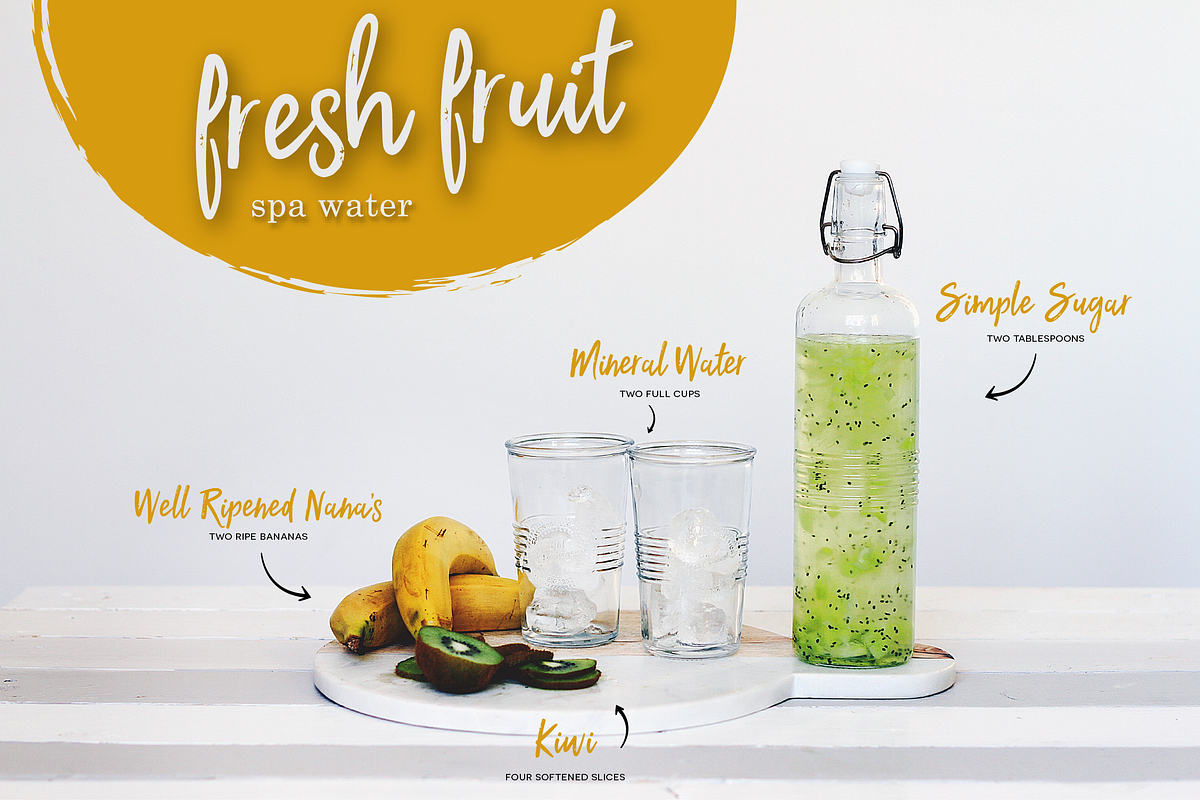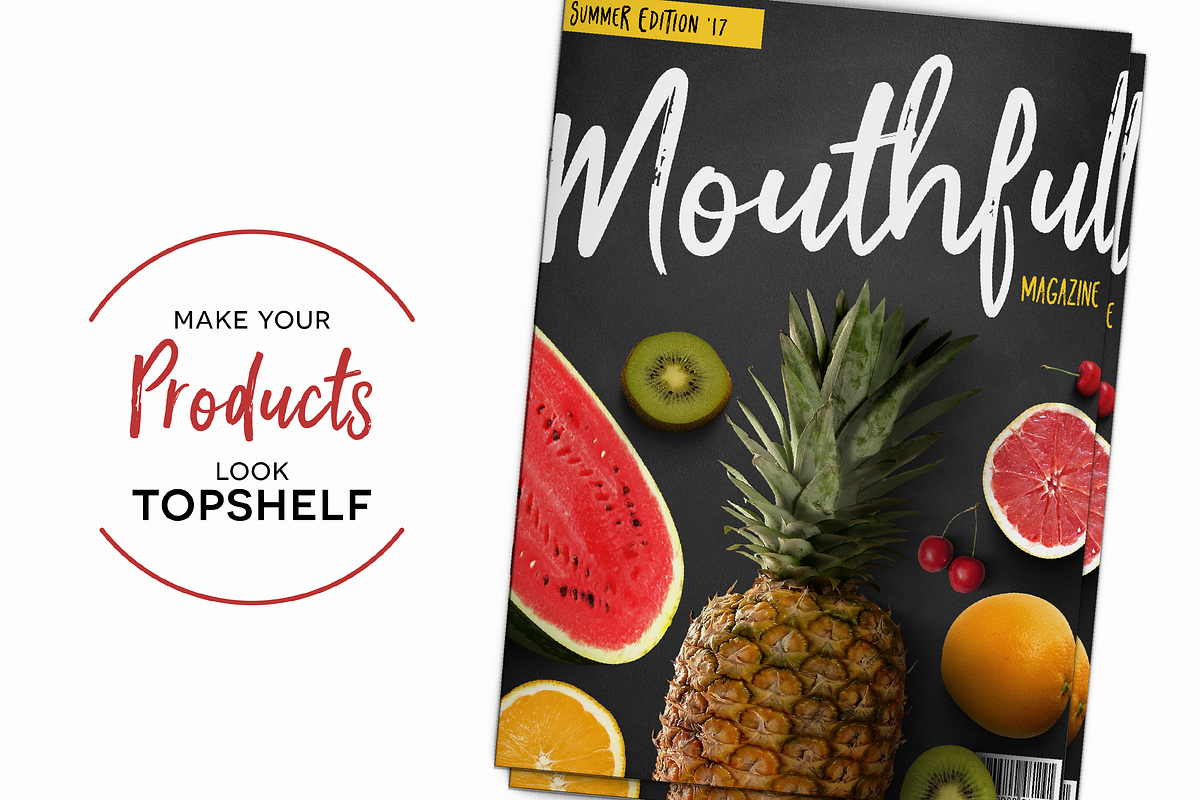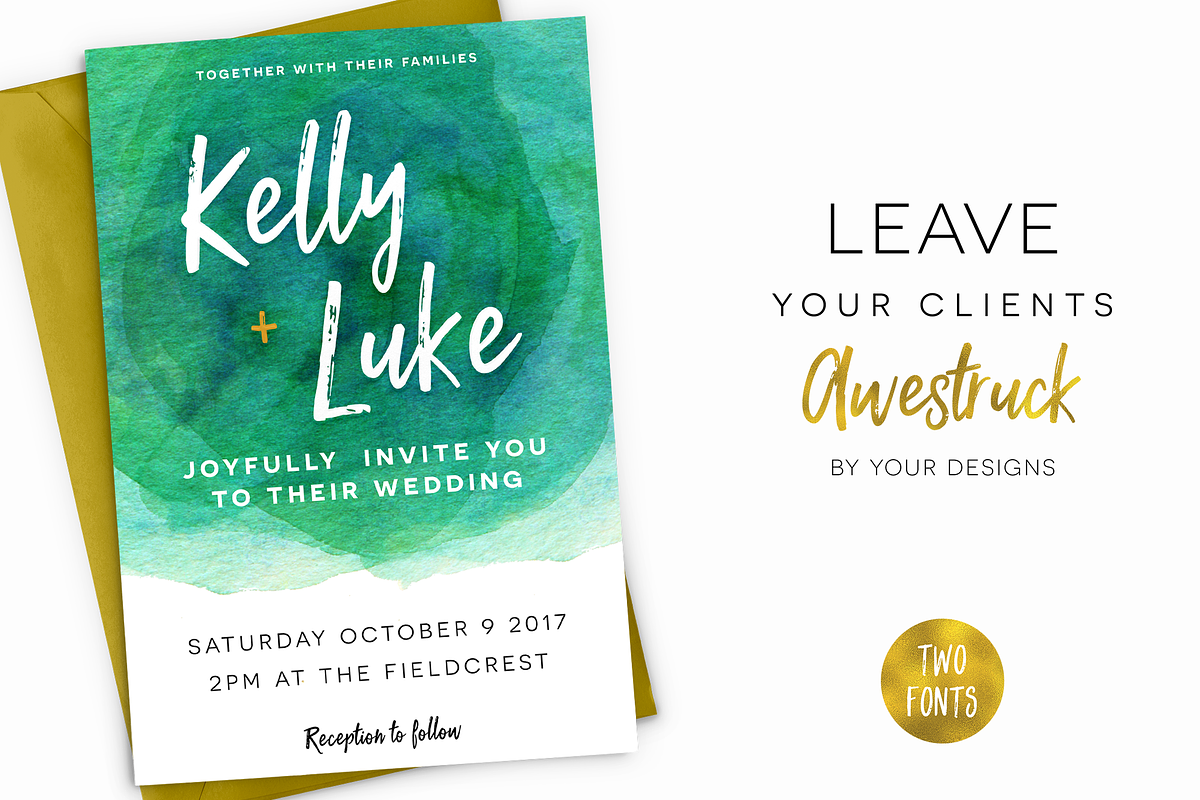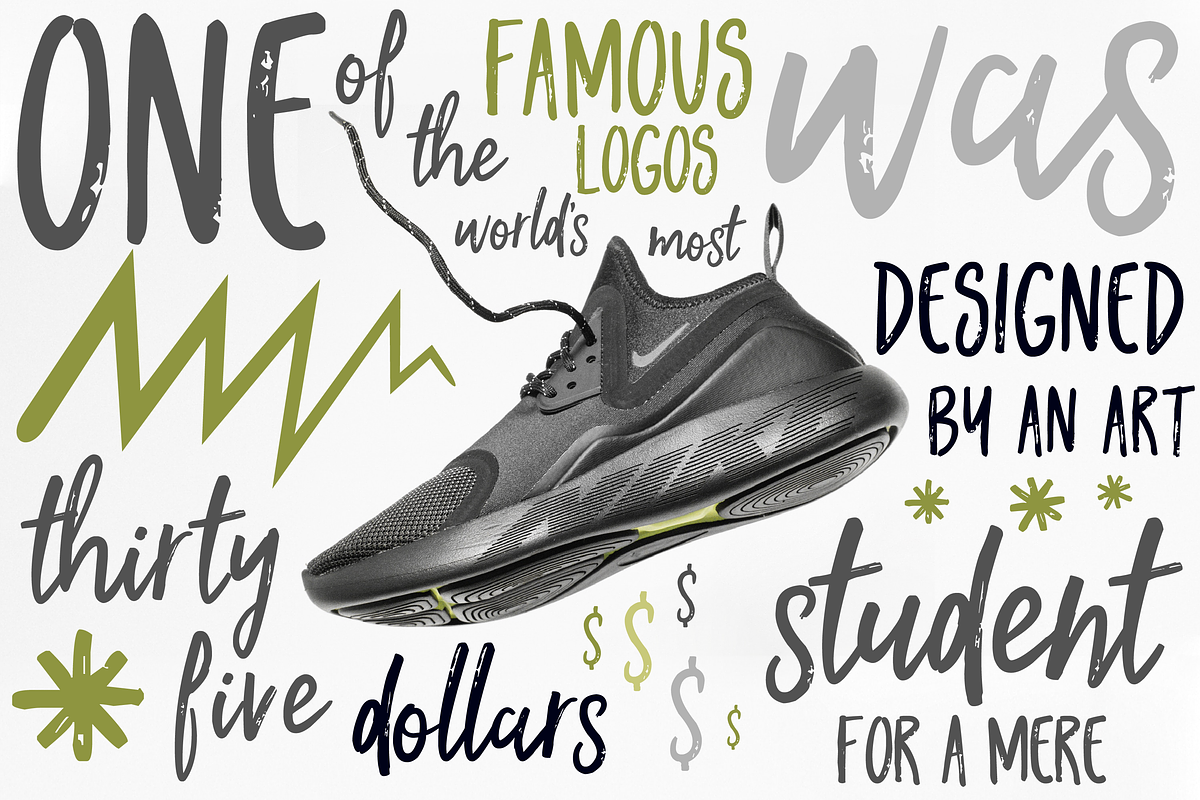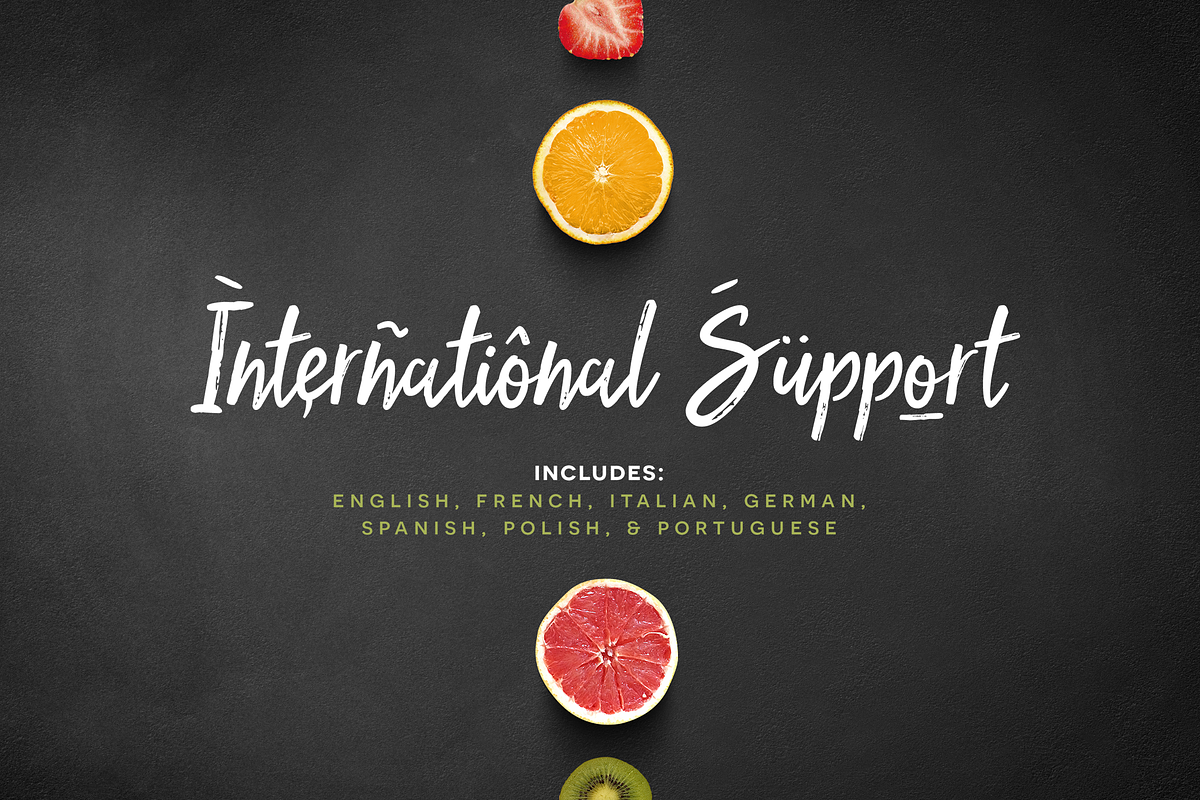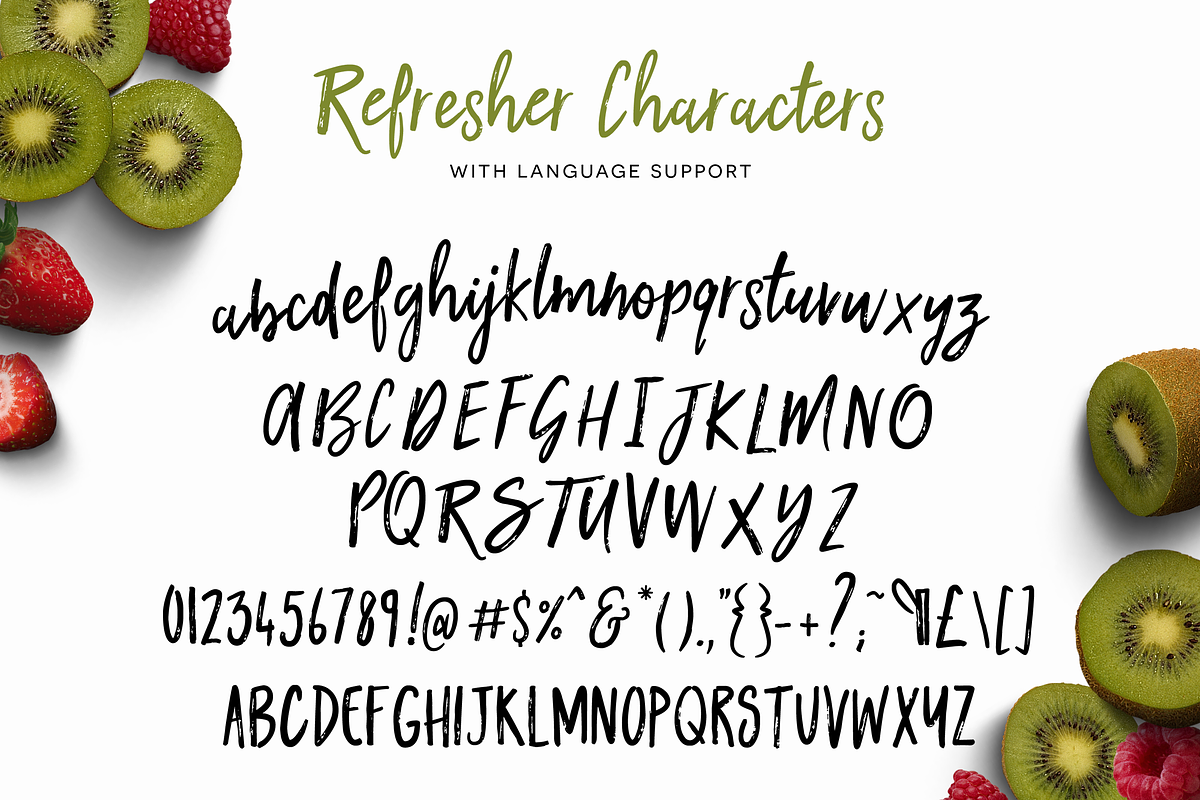
Kiwi Refresher Font Duo
ABOUT KIWI REFRESHER FONT DUO
Kiwi Refresher is a fun loving font duo that couples an off-the-cuff script with an all-caps sans serif! It's marker brush strokes give it a gritty and eye popping aesthetic perfect for prints, greeting cards, typography quotes, branding, and more!
Use it in ink, watercolor, or gold foil based designs or all on its own! Handcrafted fonts have become all the rage. Pick up this Font Duo package and get ready to take over the design world by storm!
3) Over 100 Bonus Glyphs including International Language Support (English, French, Spanish, German, Polish, Italian, Portuguese), and some other fun ligatures